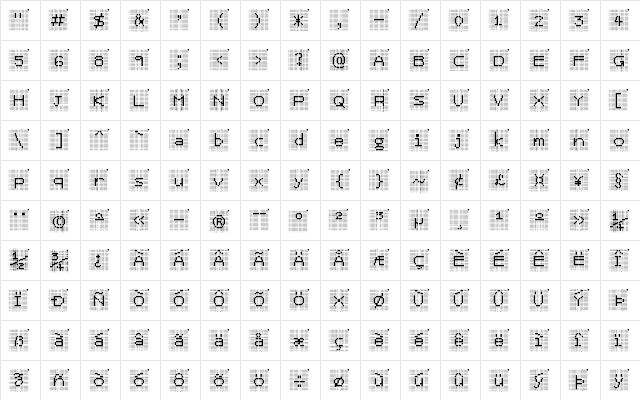
Z001-ROM? Regular
Design Context for Z001-ROM? Typeface
Z001-ROM? is a composed and adaptable typeface that performs quietly and consistently across a wide range of design contexts.